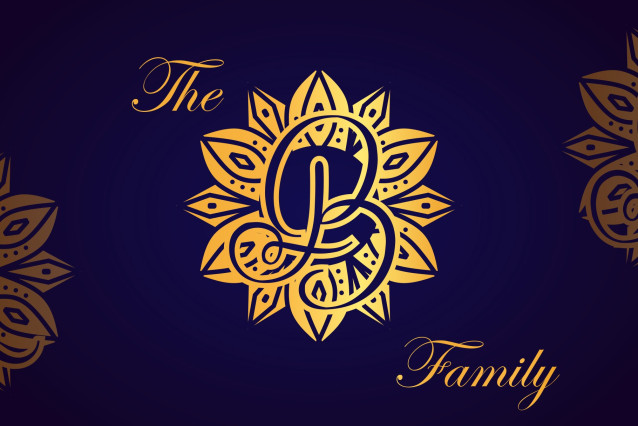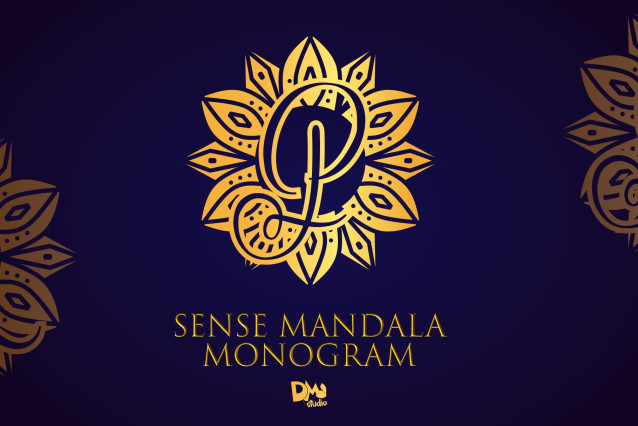
Sense Mandala Monogram Font
Sense Mandala Monogram is a delicately crafted font that blends tranquil mandala artistry with graceful letterforms. Designed to evoke inner peace and balance, this font is perfect for wellness branding, spiritual products, yoga studios, wedding stationery, and holistic design projects. Its detailed yet calming appearance brings a mindful elegance to every composition.